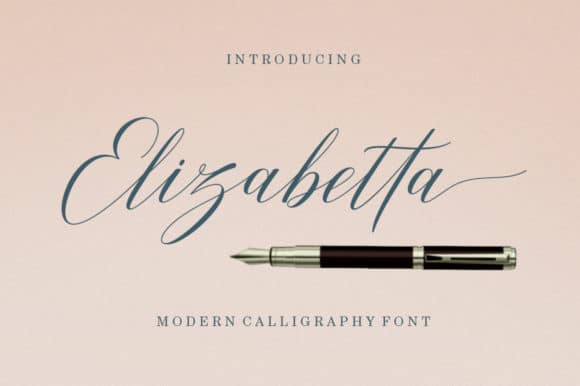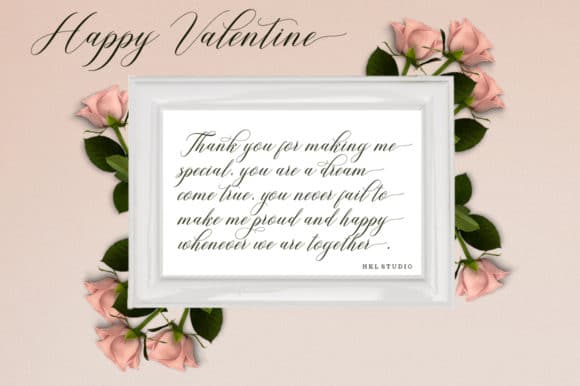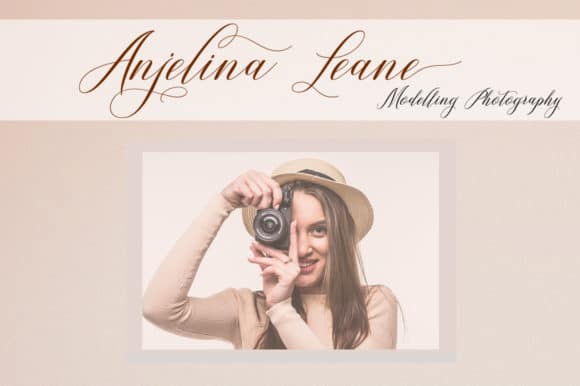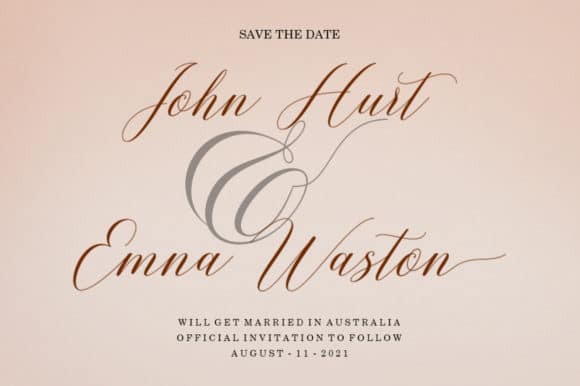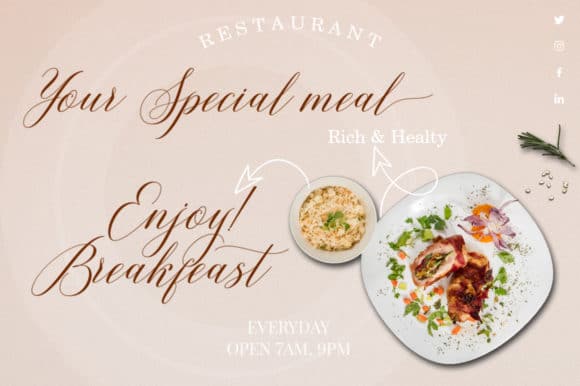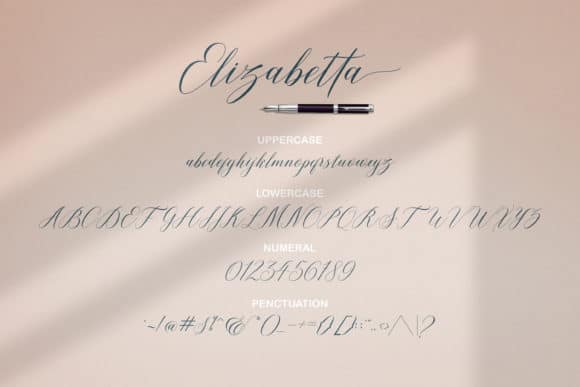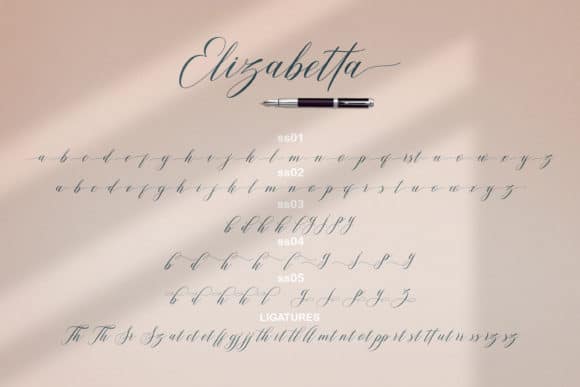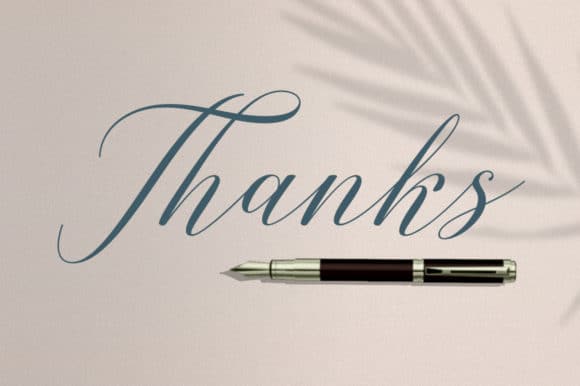
Elizabetta is an incredibly distinct, delicate and graceful handwritten font. It looks dazzling on wedding invitations, thank you cards, quotes, greeting cards, logos, business cards and every other design which needs a customized touch.
- Designer: Santiago Orozco